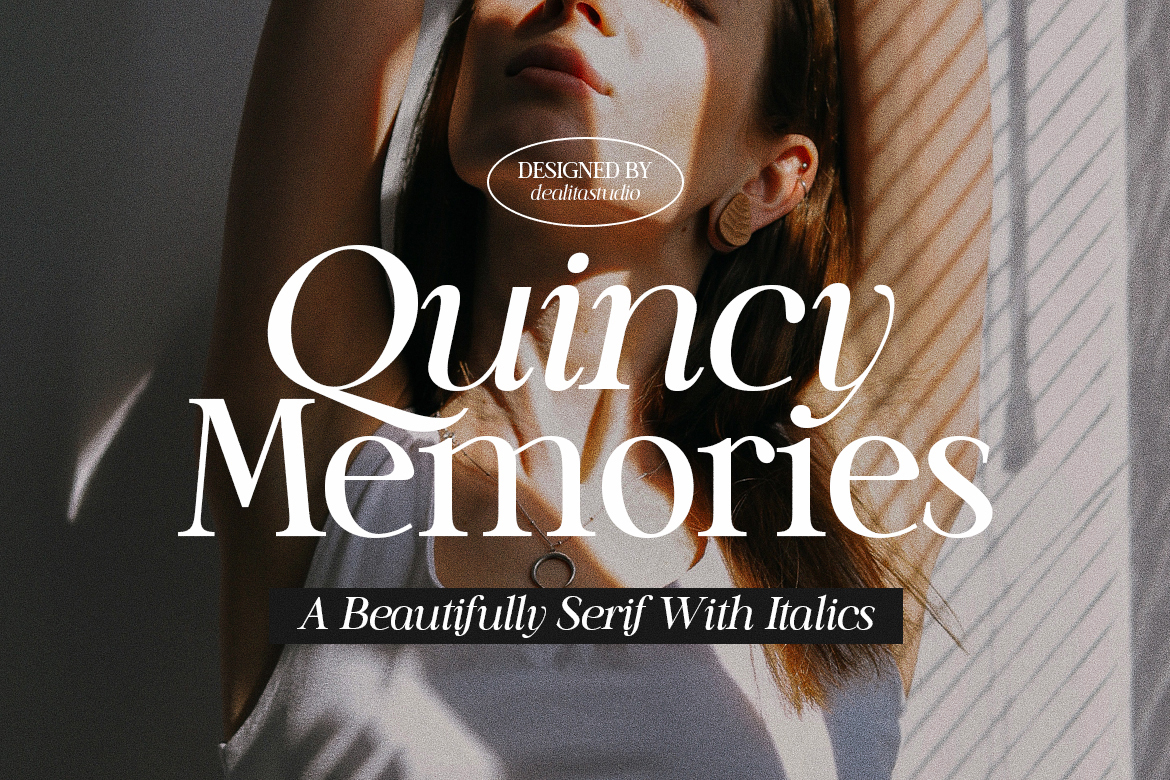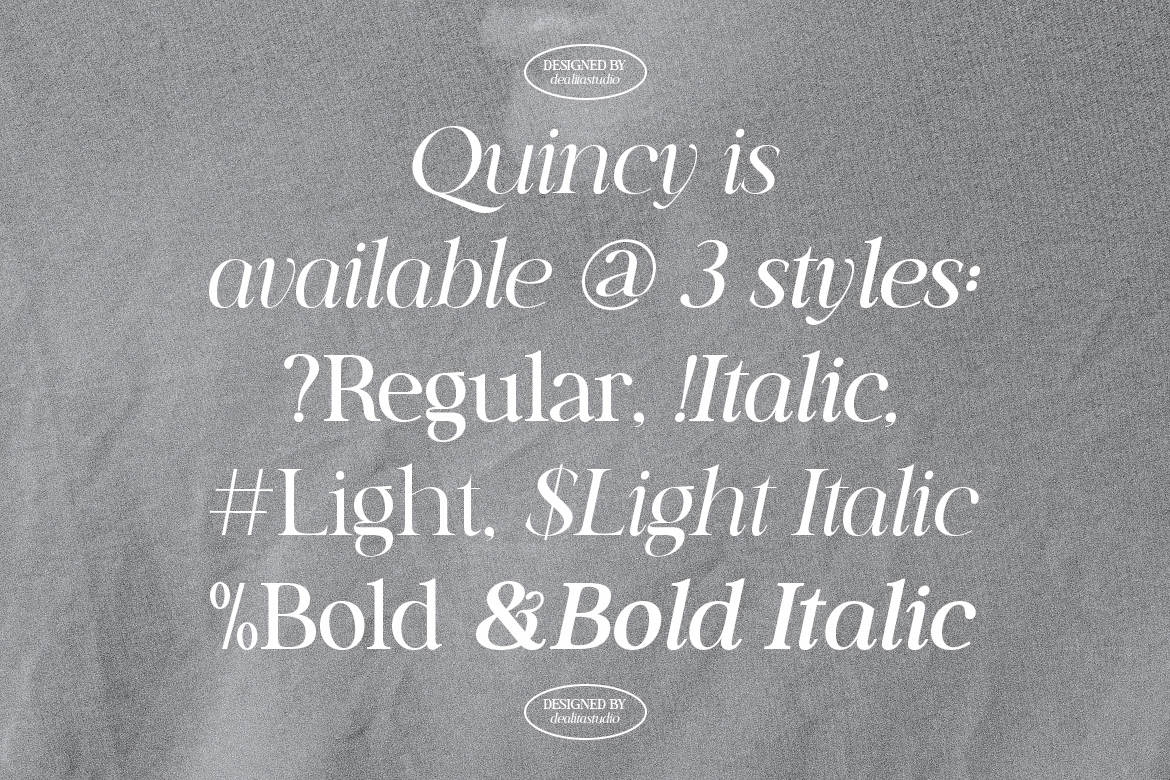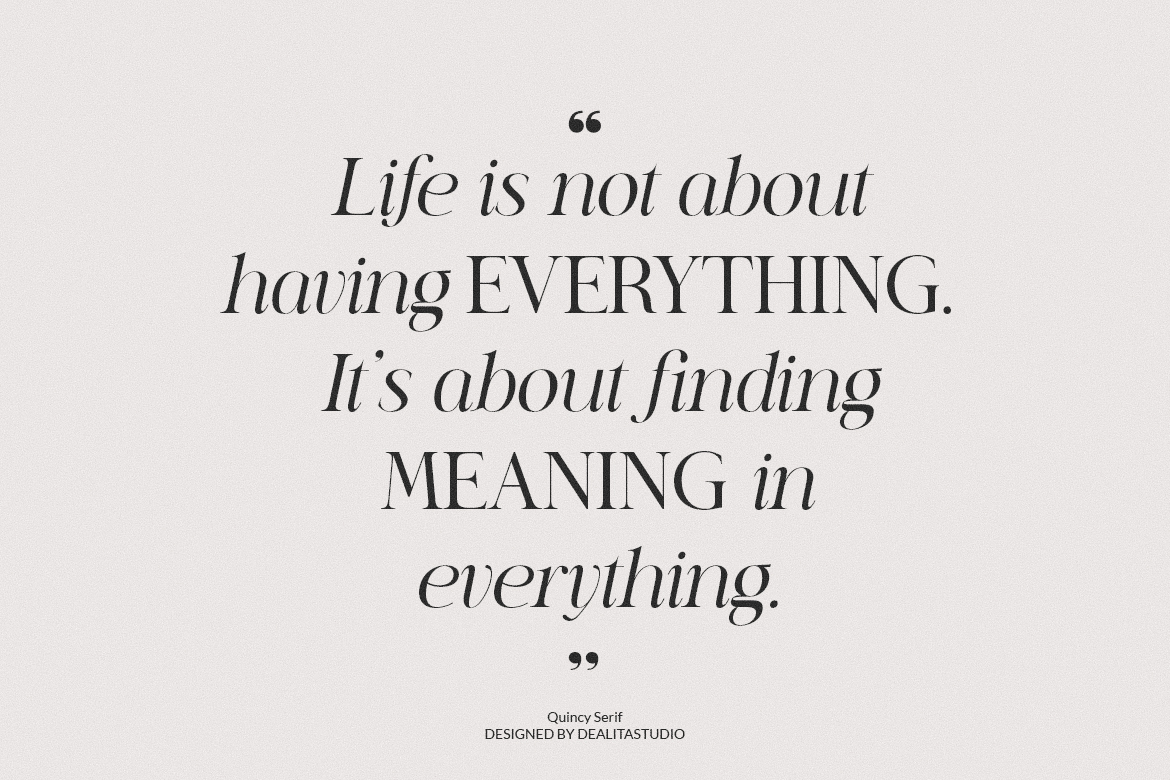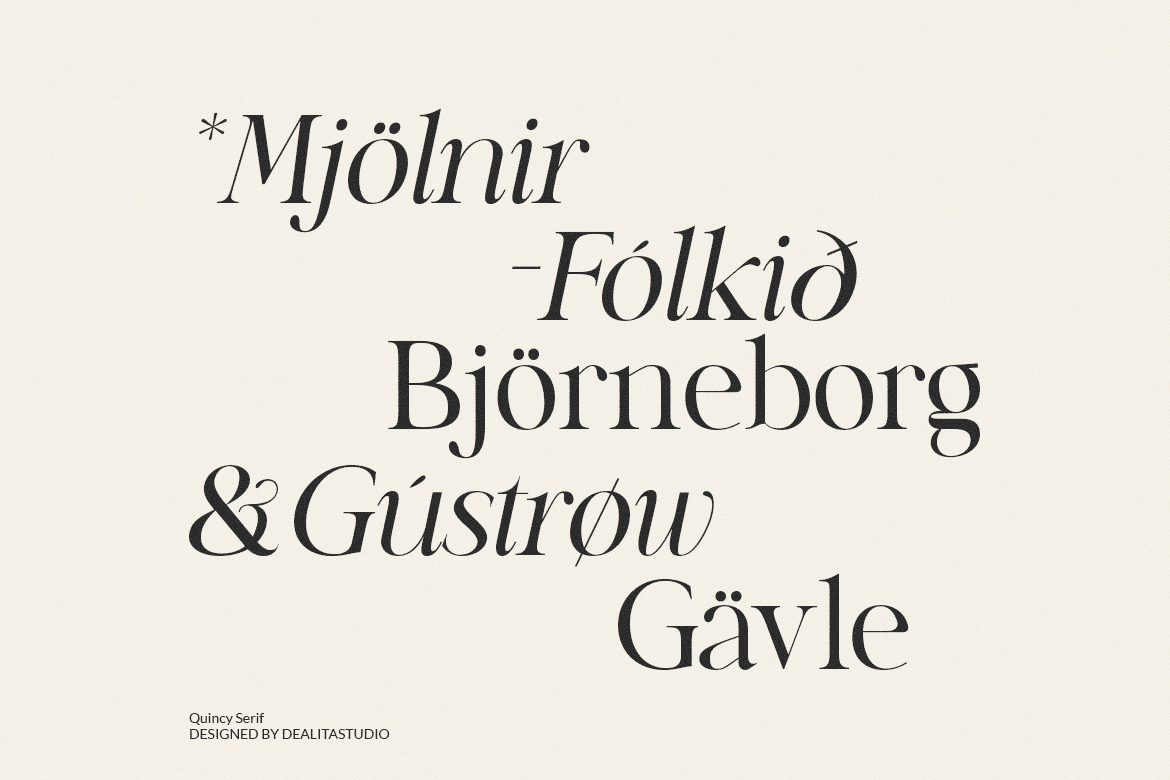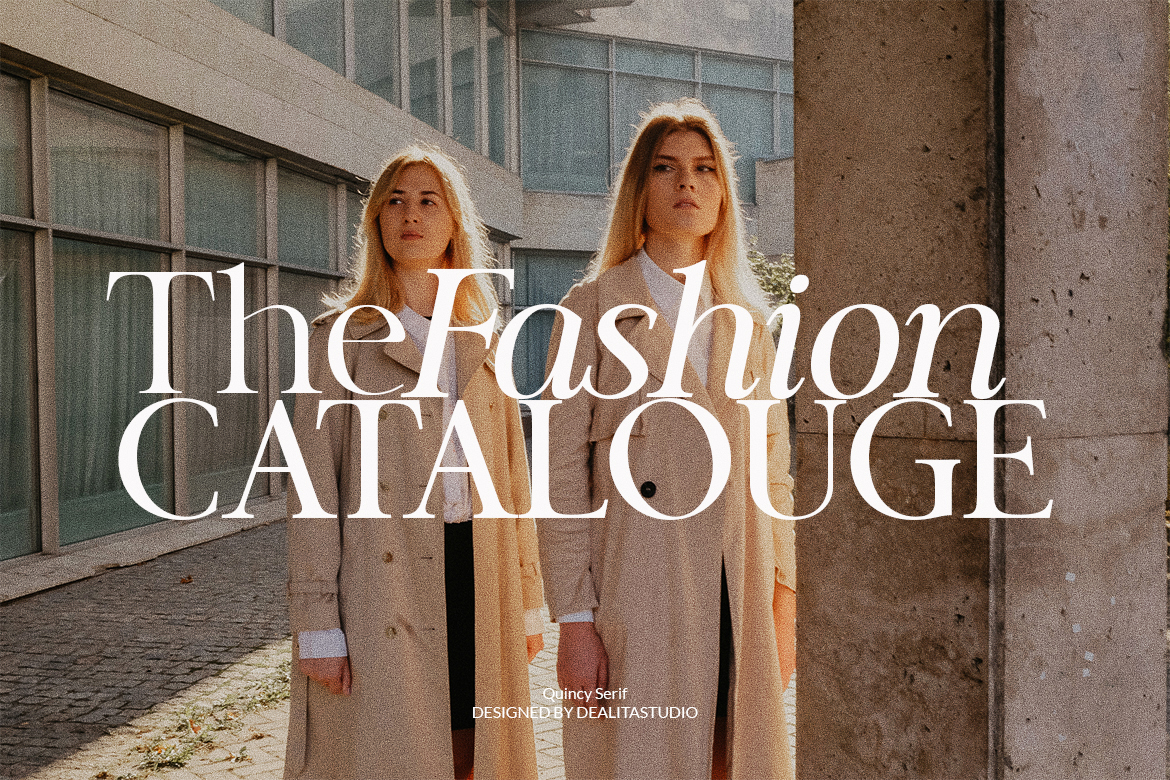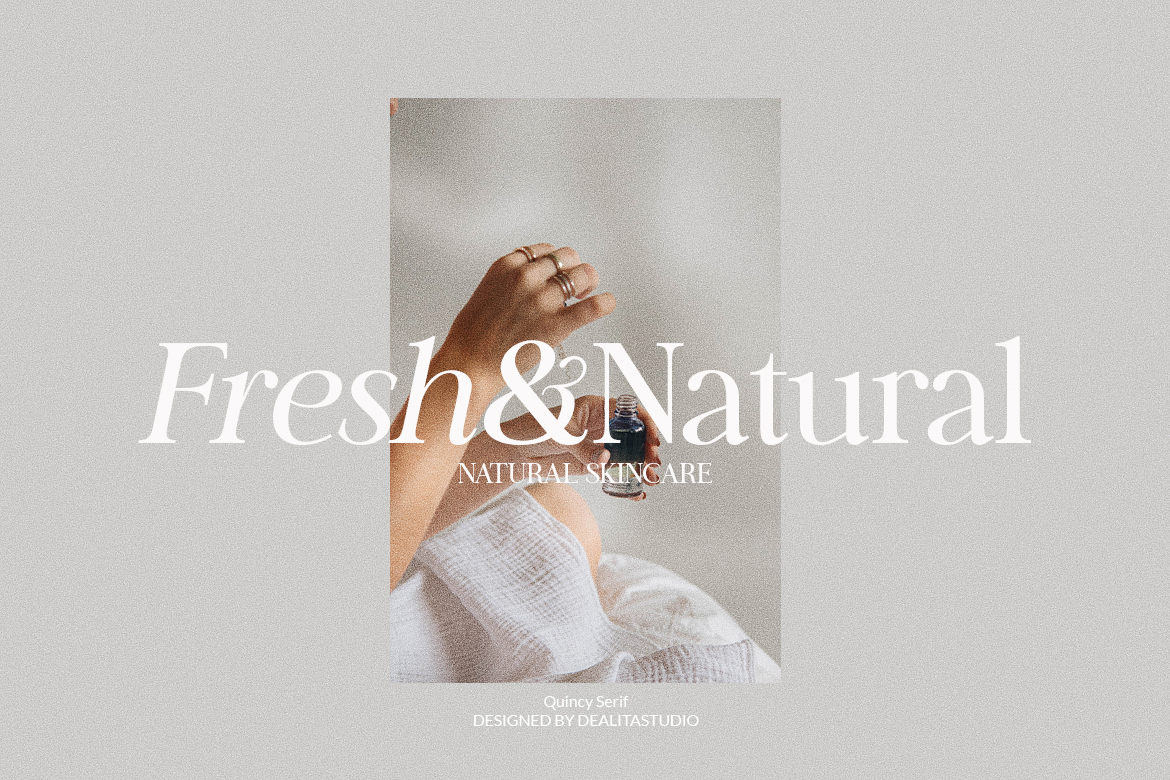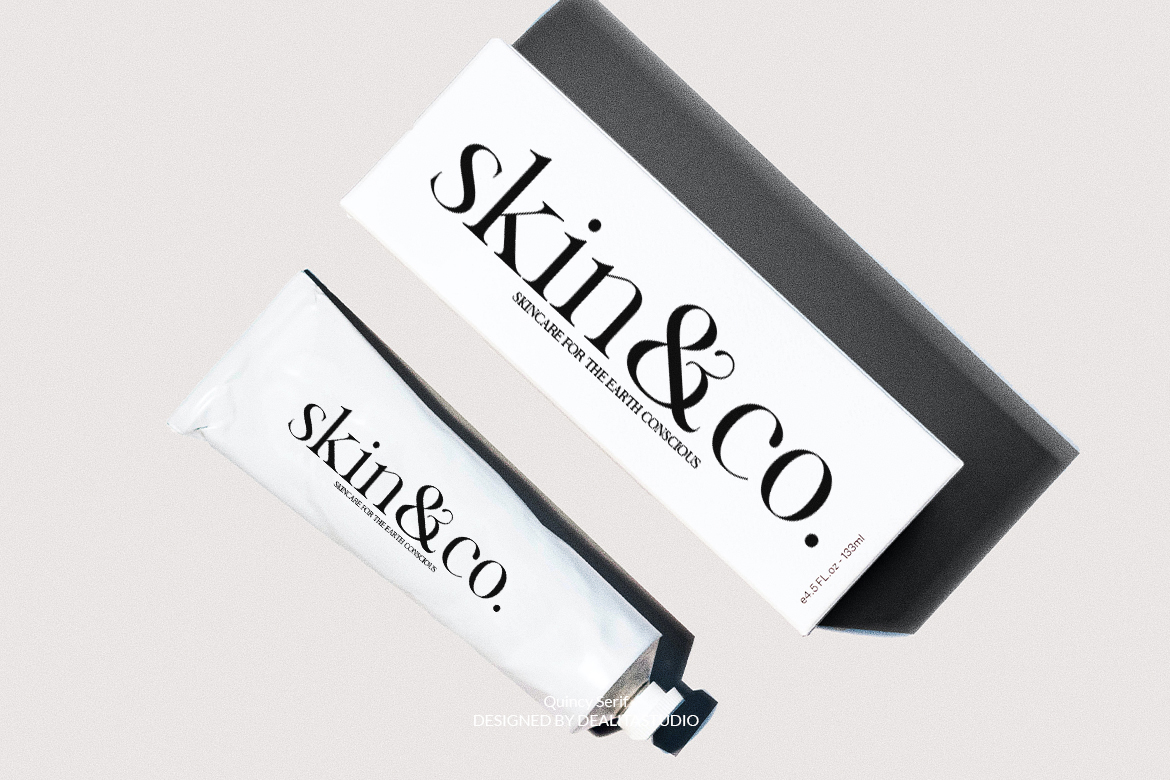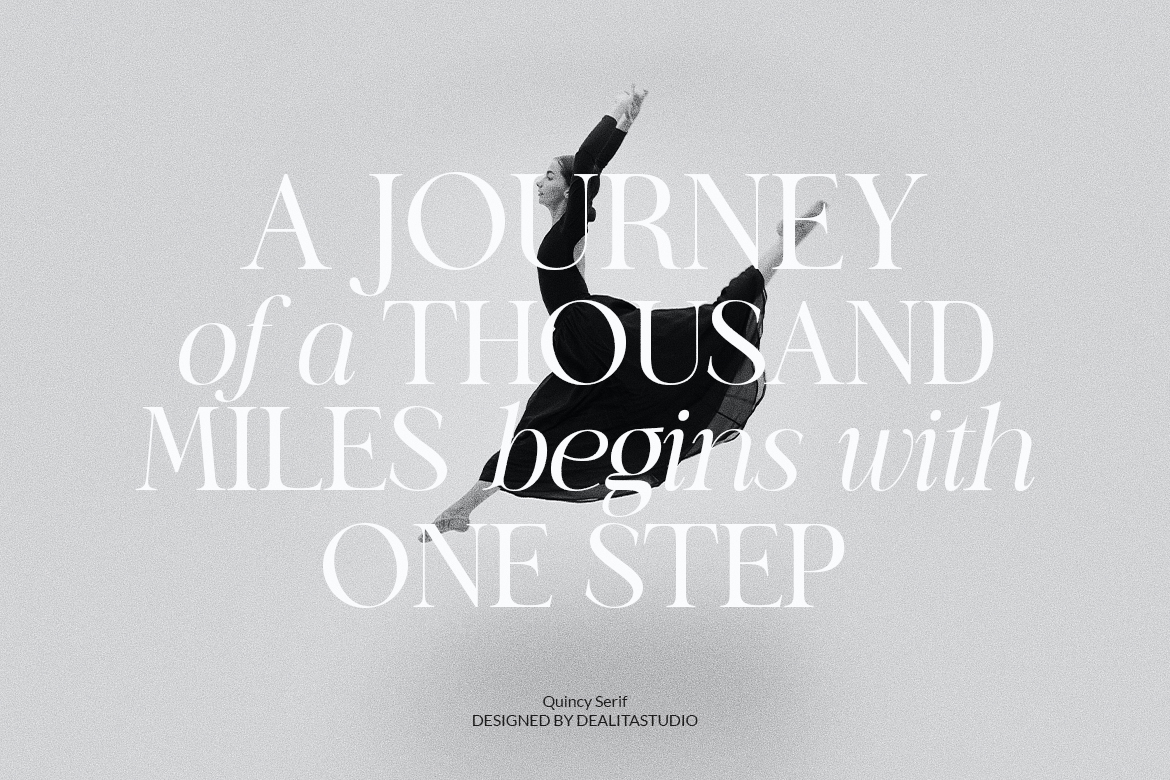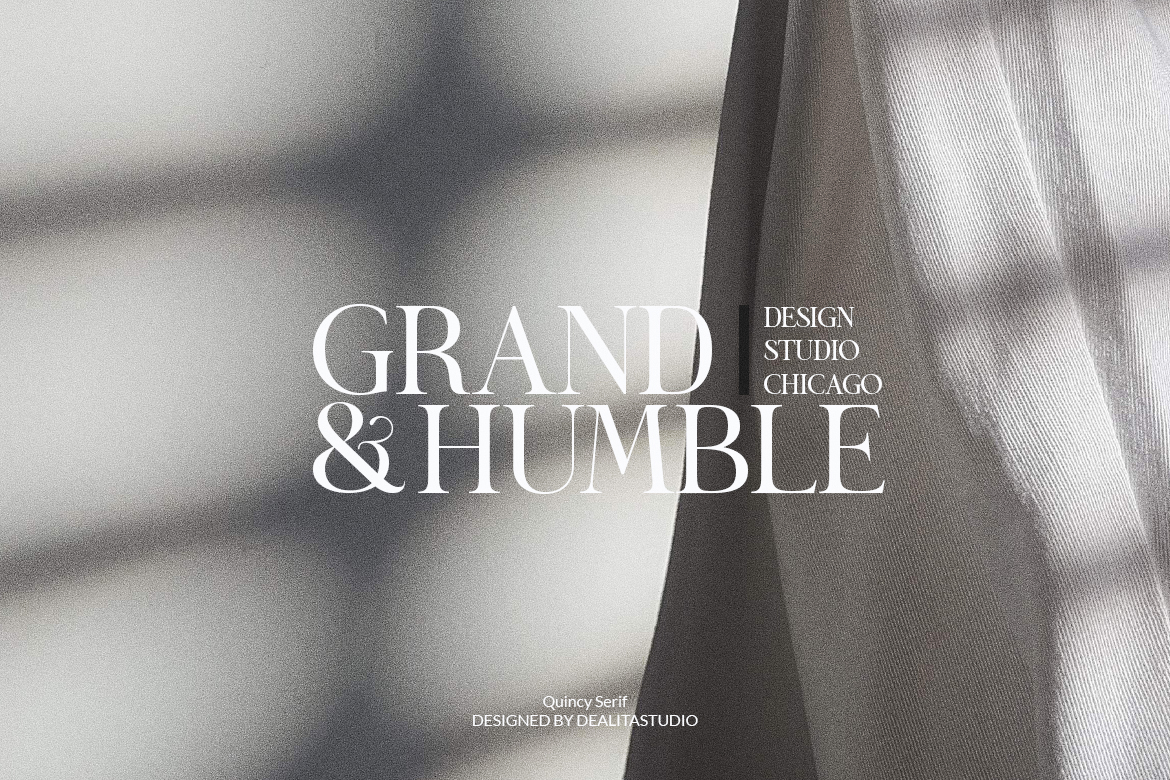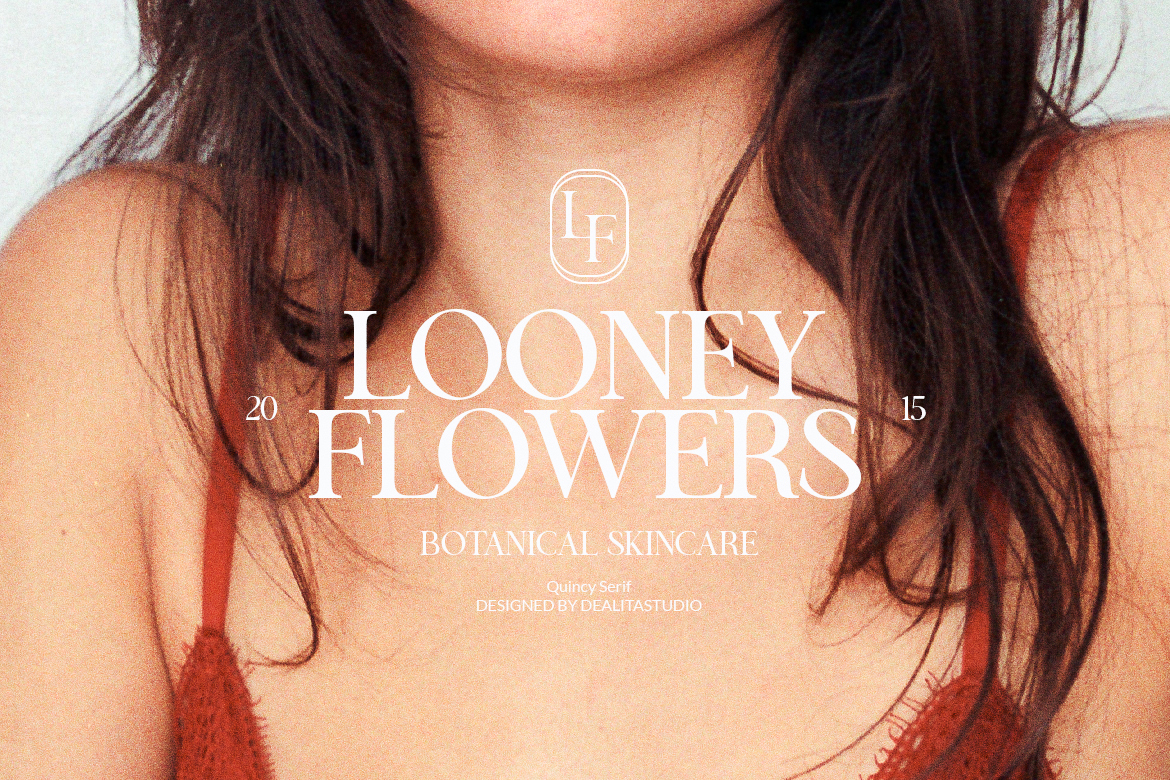
Quincy | Stylish Variable Serif Font for Web & Branding
Description
Quincy is a stylish variable serif font that combines elegant high-contrast with refined decorative details. Designed for impact and sophistication, Quincy is perfect for fashion branding, beauty labels, luxury packaging, and editorial design that demands a bold yet graceful presence. As a digital-first solution, it offers unmatched responsive design flexibility for modern web projects.
With its high-contrast strokes and subtle flair, Quincy adds a touch of dramatic class to any project. It’s ideal for logos, headlines, product labels, and social media content where elegance meets statement-making style.
Ideal Applications
- Fashion and beauty branding identities
- Luxury packaging and high-end product labels
- Editorial design and sophisticated magazine layouts
- Digital projects requiring Variable Font flexibility
Technical Mastery & Versatility
- Variable Font Technology: Seamlessly transition through six styles (from Light Italic to Bold Italic), ensuring perfect responsive typography in any digital project.
- 17 Ligatures across three OpenType features for a natural, polished flow.
- 328 Glyphs and robust 87-Language Multilingual Support for authentic global communication.